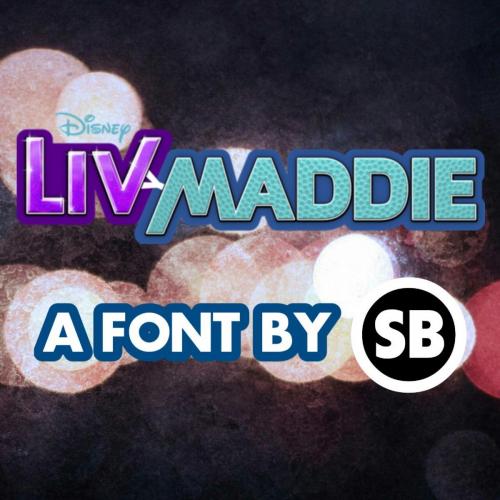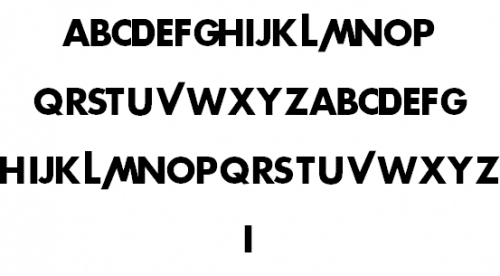
This font is a replica of the original ‘Liv and Maddie’ font
THIS IS HOW YOU MUST MAKE THE TEXT TO RECREATE THE REPLICA OF THE LOGO:
liV and MADD * E
- Designer: Social Birthday